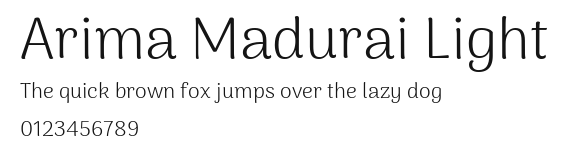
Arima Madurai Light Preview
• Font Name: Arima Madurai Light
• Designer: Joana Correia and Natanael Gama
• Manufacturer: NDISCOVER
About Arima Madurai Light.ttf
Arima Madurai Light.ttf is a modern, elegant sans-serif font designed for ultimate readability and visual harmony. Perfect for branding, headlines, web design, and print materials.